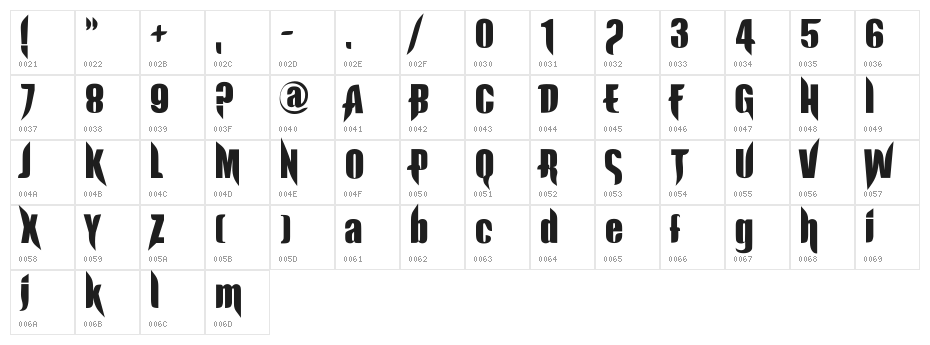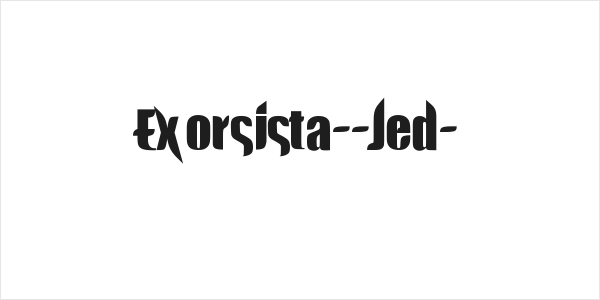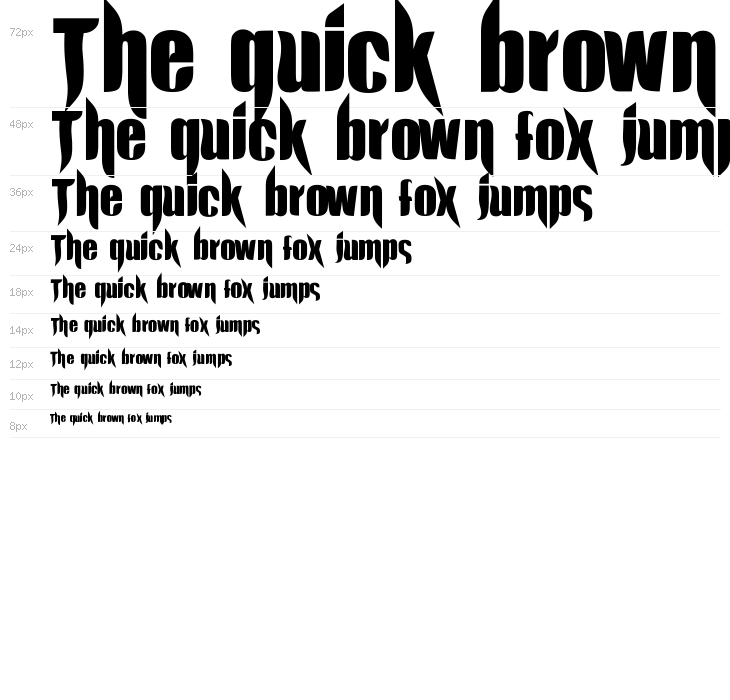
Exorsista--Jed- Font
Exorsista--Jed- Description
A highly stylized, abstract font where each character is reduced to a minimal, angular form, making it difficult to distinguish between different letters and numbers. The design features sharp edges and consistent vertical strokes, with a bold, geometric appearance.
| Overall Style | Modern, Abstract, Experimental |
| Use Case | Display, Art projects, Branding |
| Proposed Projects | Experimental posters, avant-garde branding, album covers, digital art. |